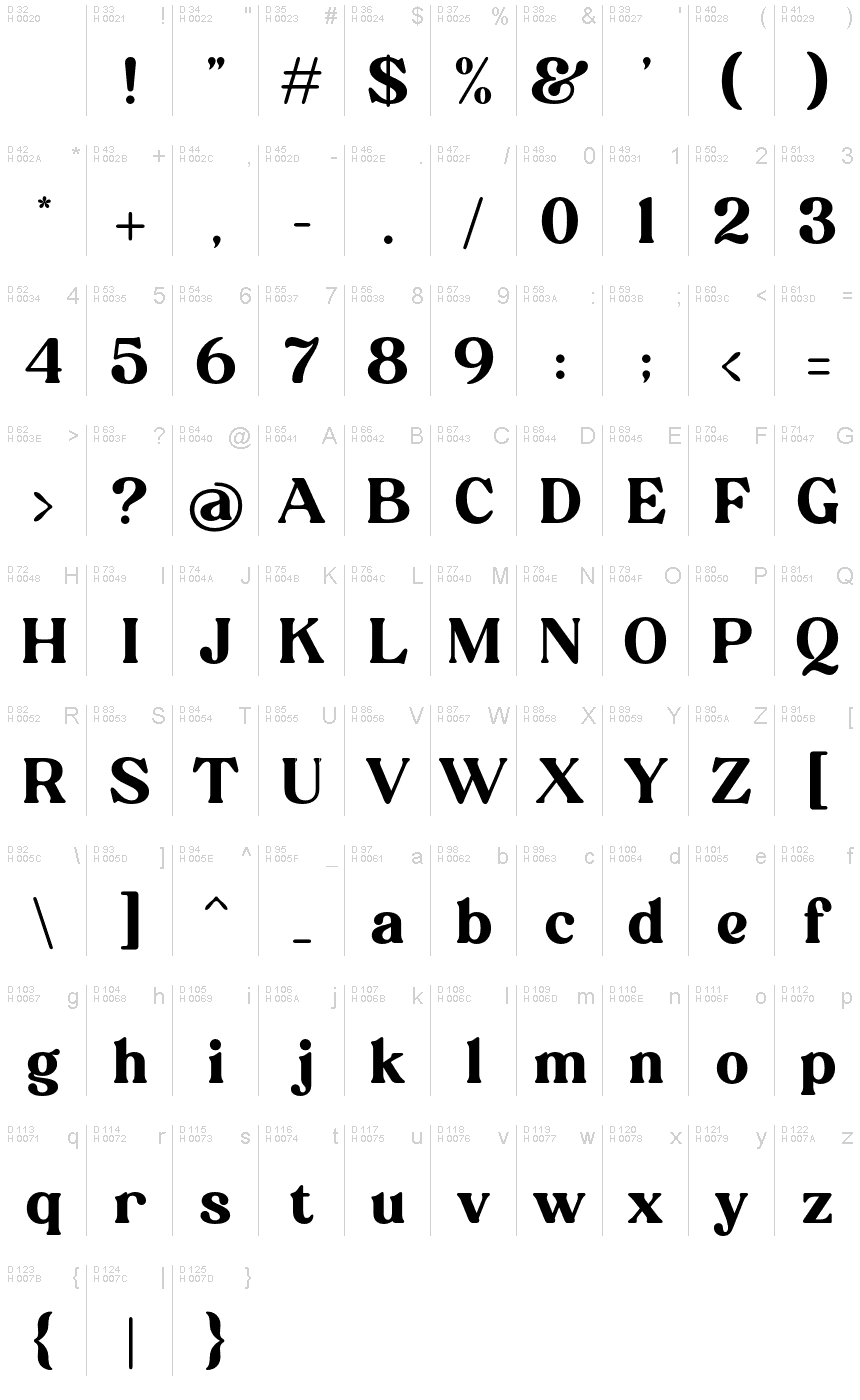
Quikens, designed by BrandSemut, is a bold serif font that combines retro and modern elements. With its clean lines and smooth curves, Quikens adds a touch of class to any project.
This versatile typeface is perfect for creating eye-catching headings, logos, and branding materials. Its bold weight makes it ideal for use in magazines and product packaging where a strong visual impact is desired. Additionally, Quikens can elevate the elegance of invitations by giving them a sophisticated yet playful feel.
Whether you're designing for print or digital platforms, this retro-modern font will make your project stand out from the crowd.